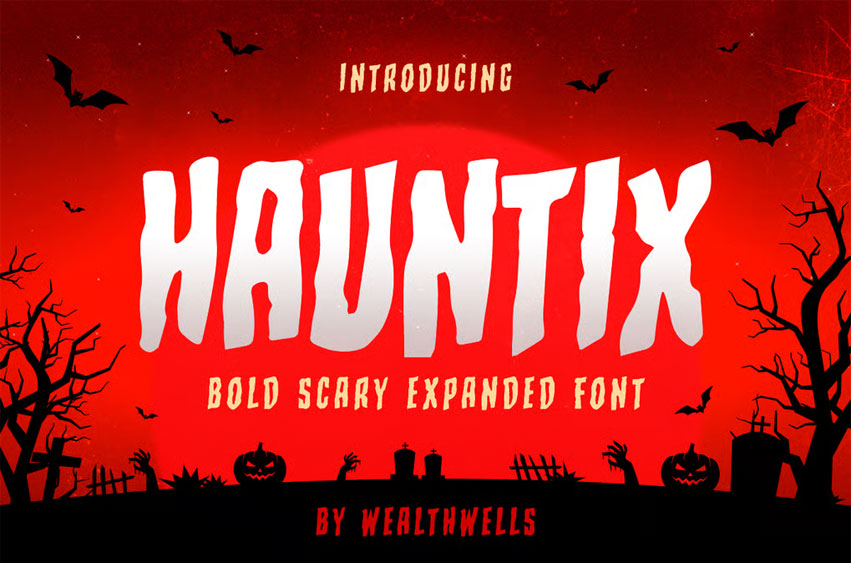
Hauntix Font
Hauntix Font is designed for spooky Halloween projects, featuring bold, distorted typography paired with eerie silhouettes of graveyards, flying bats, pumpkins, and chilling night elements.
The font works perfectly on red gradient horror posters, haunted house flyers, and festive seasonal graphics. Ideal for designers, illustrators, and creators looking to evoke a dark, creepy atmosphere for Halloween events, parties, and horror-themed artwork.